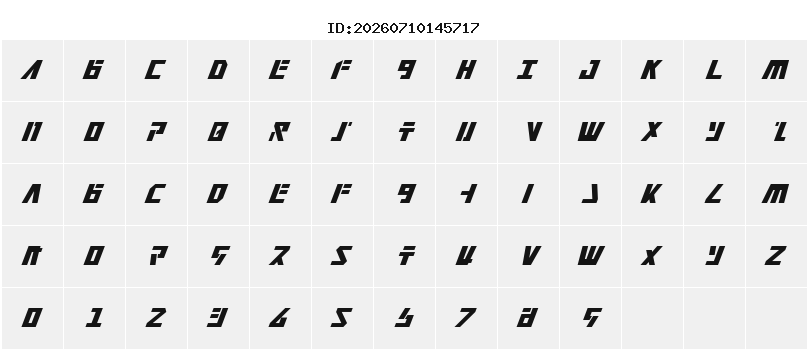
Falconhead Condensed Italic Preview
• Font Name: Falconhead Condensed Italic
• Font Style: Condensed Italic
• Font ID: Falconhead Condensed Italic
• Full Font Name: Falconhead Condensed Italic
• PostScript Name: FalconheadCondensedItalic
About Falconhead Condensed Italic.ttf
Falconhead Condensed Italic.ttf is a modern, elegant sans-serif font designed for ultimate readability and visual harmony. Perfect for branding, headlines, web design, and print materials.